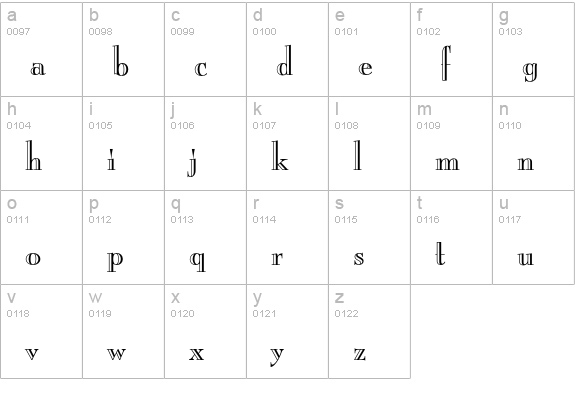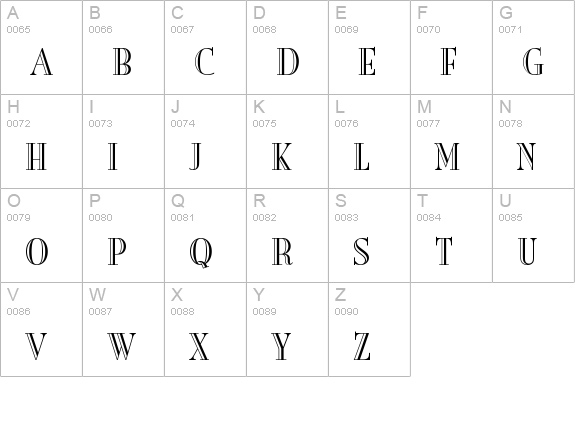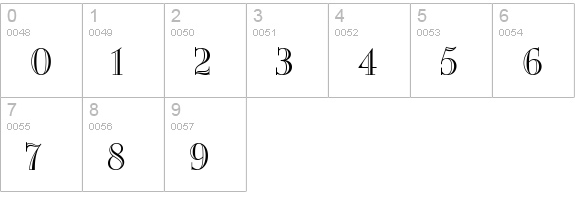
Burlington Std Font Details
Burlington Std font is a timeless and elegant typeface that exudes sophistication and professionalism. With its clean lines and classic design, this font is perfect for a wide range of projects, from branding to editorial design. The versatility of Burlington Std makes it a must-have for any designer looking to elevate their work with a touch of sophistication. The best part? Burlington Std is available for free download at FontsMarket.com, allowing designers to access this beautiful font without any cost. Whether you're working on a logo, website, or print materials, Burlington Std will add a touch of class and style to your designs. Download it today and see the difference it can make in your projects.